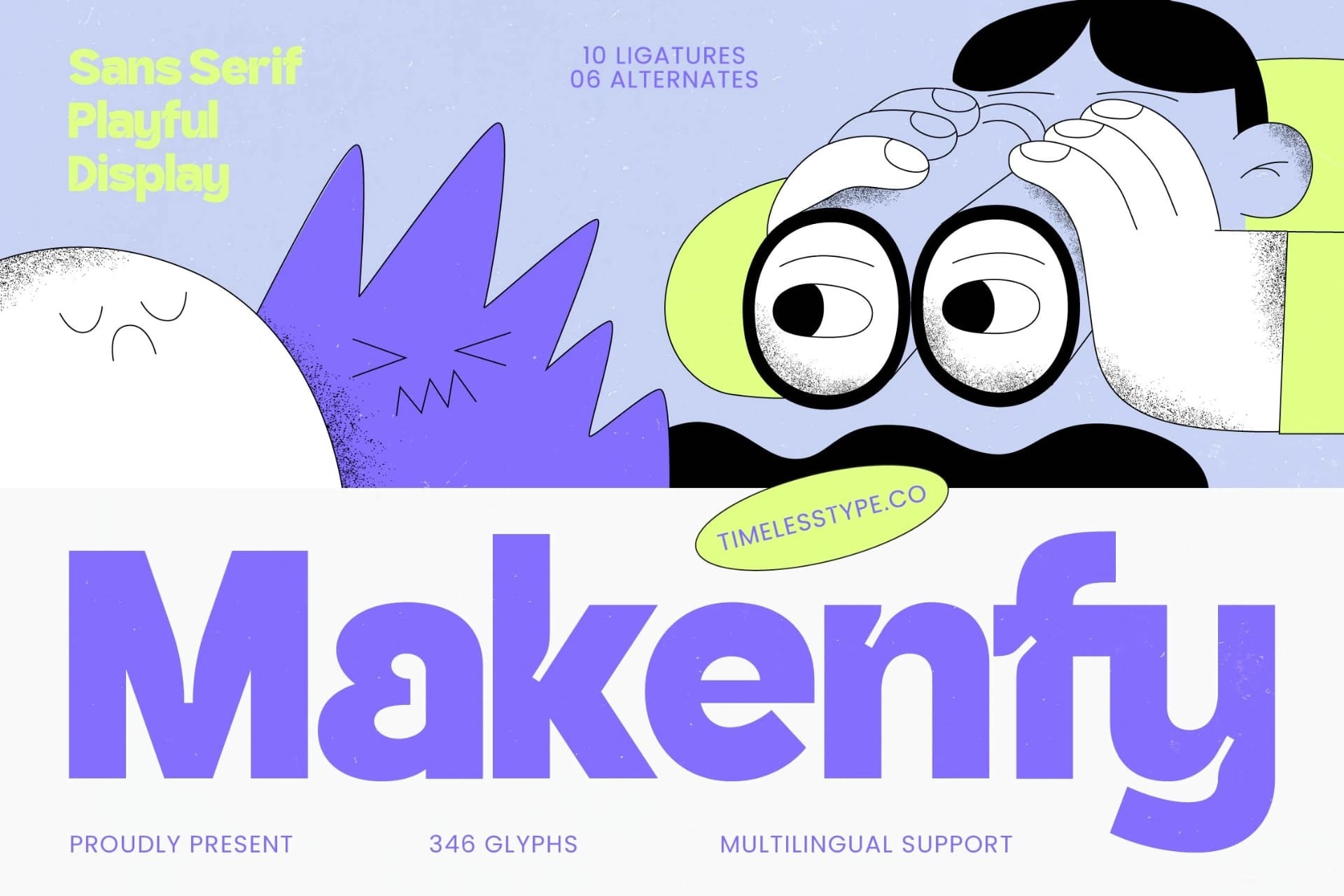
Makenfy – Sans Serif Diplay Font
Makenfy – Sans Serif Diplay Font is a distinctive and expressive font crafted to bring personality, structure, and creative energy into your projects. Makenfy – Sans Serif Playful Display is a high-impact, bold display typeface designed to command attention while maintaining an approachable, friendly vibe. Its thick strokes and organic proportions offer a unique aesthetic that cuts through the noise of traditional sans serifs, making it an essential tool for designers seeking a distinctive personality in their creative work.
Unlocking limitless design potential requires a typeface built with technical excellence and global reach in mind. With its extensive multilingual support, Makenfy – Sans Serif Playful Display adapts seamlessly across global markets, making it incredibly versatile for international projects. Featuring a comprehensive set of 346 glyphs, including specialized ligatures and alternates, this font ensures that your typography remains dynamic and perfectly tailored to any linguistic or stylistic requirement.
Elevate your brand with a typeface specifically engineered for maximum engagement and high-end visual storytelling. Makenfy – Sans Serif Playful Display is the ideal choice for luxury branding, creative packaging, and bold editorial design where a touch of playfulness is required without sacrificing authority. It is perfect for children’s products, modern lifestyle brands, and dynamic social media graphics that need to resonate instantly with a contemporary, trend-conscious audience.
Invest in a versatile typographic asset that ensures your message stands out in a crowded and competitive landscape. Makenfy – Sans Serif Playful Display bridges the gap between functional legibility and artistic expression, providing a reliable foundation for any commercial project. Whether you are crafting a new logo or a large-scale advertising campaign, this premium display font delivers the reliability and flair needed to achieve commercial success and lasting brand recognition.